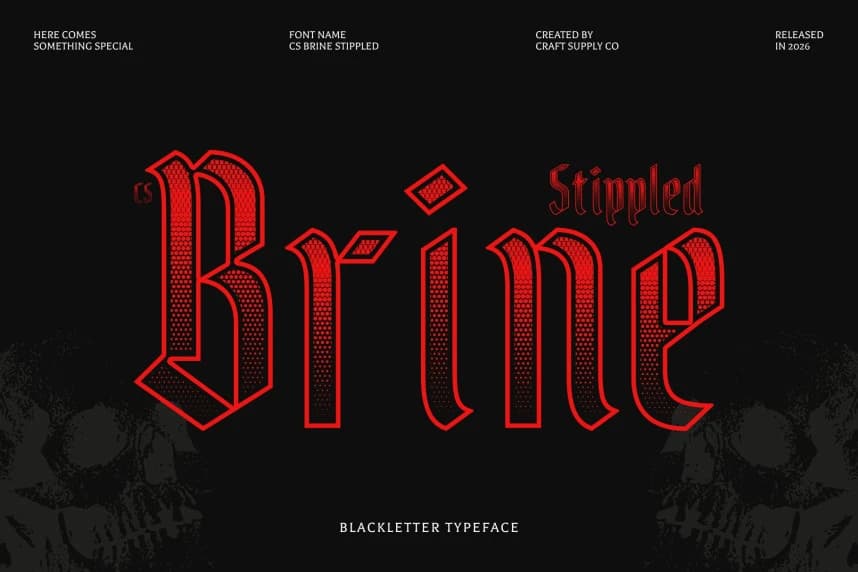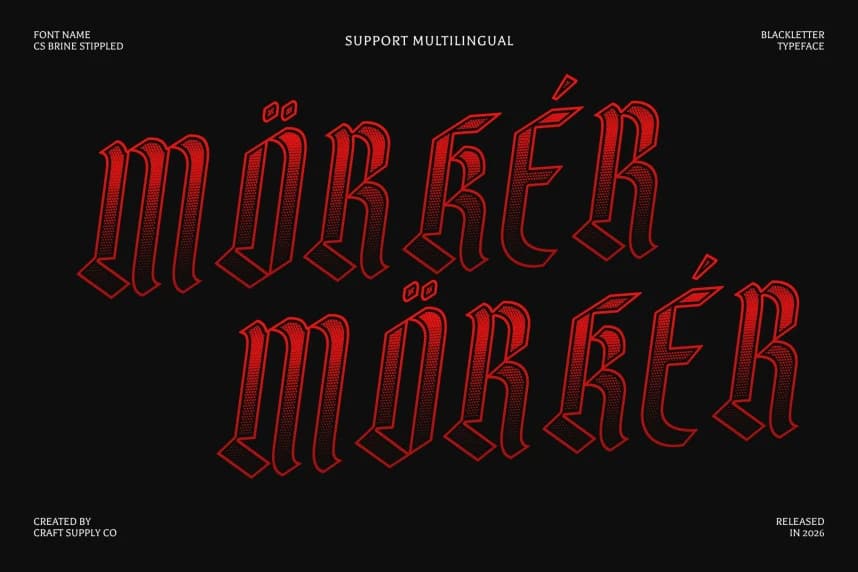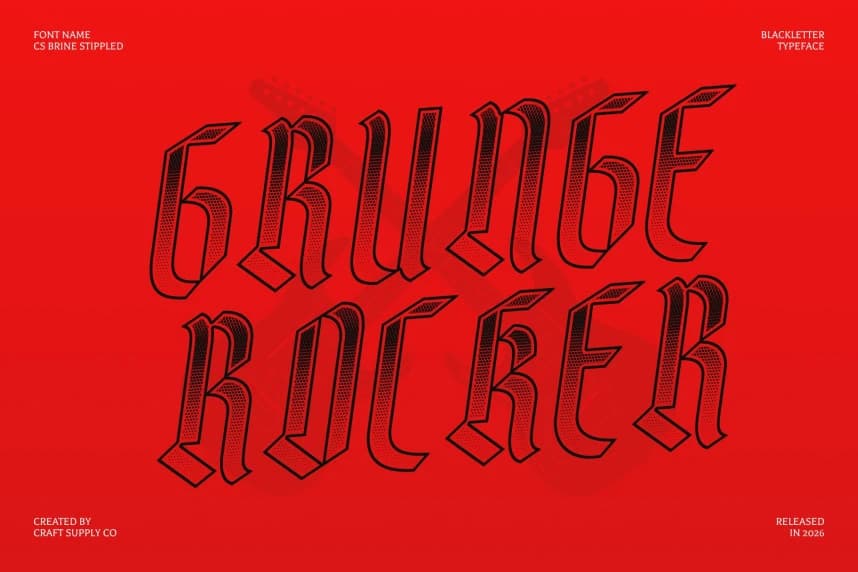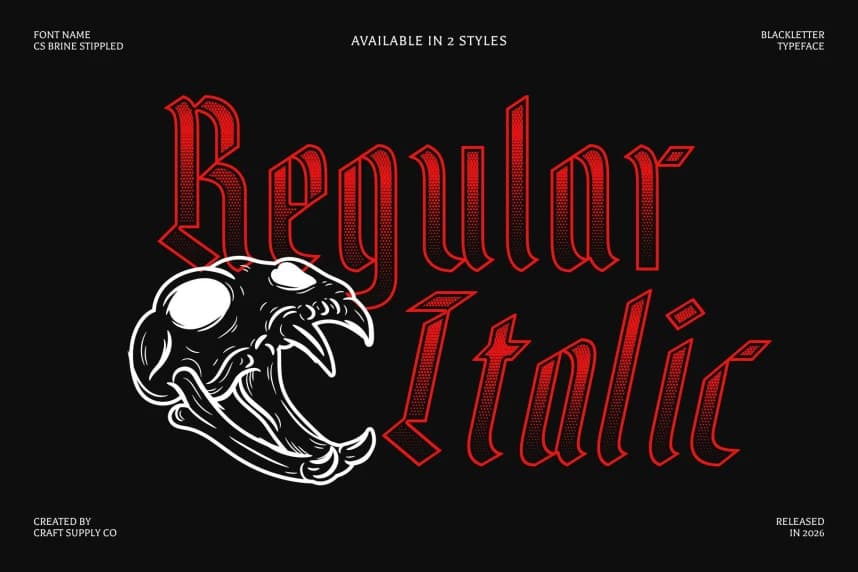
CS Brine Stippled Font
CS Brine Stippled Font – Blackletter Font with Historic Elegance Intricately Crafted Blackletter with Textured Depth. This is a striking blackletter display font that captivates with richly detailed letterforms and bold, sharp shapes.